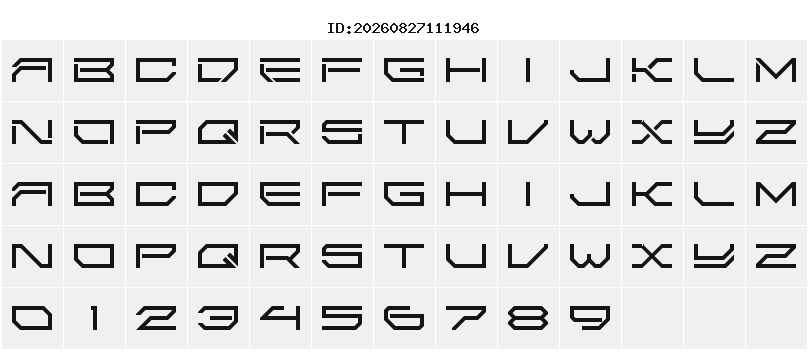
• Font Name: 2589 LDR
• Designer: Michał “Neoqueto” Nowak
• Description: ‚Äú2589 LDR‚Äù was built with FontStruct ‚Äú2589 LDR‚Äù is based on ‚ÄúCorruptor Clean LDR‚Äù by ‚ÄúMichał “Neoqueto” Nowak‚Äù (http://fontstruct.com/fontstructors/neoqueto)
2589 LDR.ttf is a modern, elegant sans-serif font designed for ultimate readability and visual harmony. Perfect for branding, headlines, web design, and print materials.